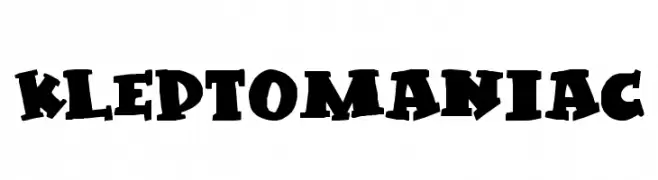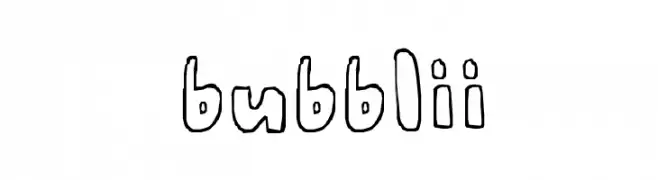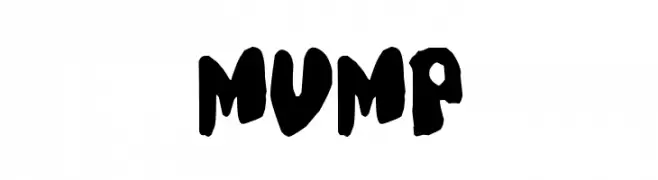
A bold, playful font with exaggerated serifs and a whimsical style.
A bold, playful, and hand-drawn font with a whimsical style.
A whimsical, bubbly outline font with playful accents and a hand-drawn feel.